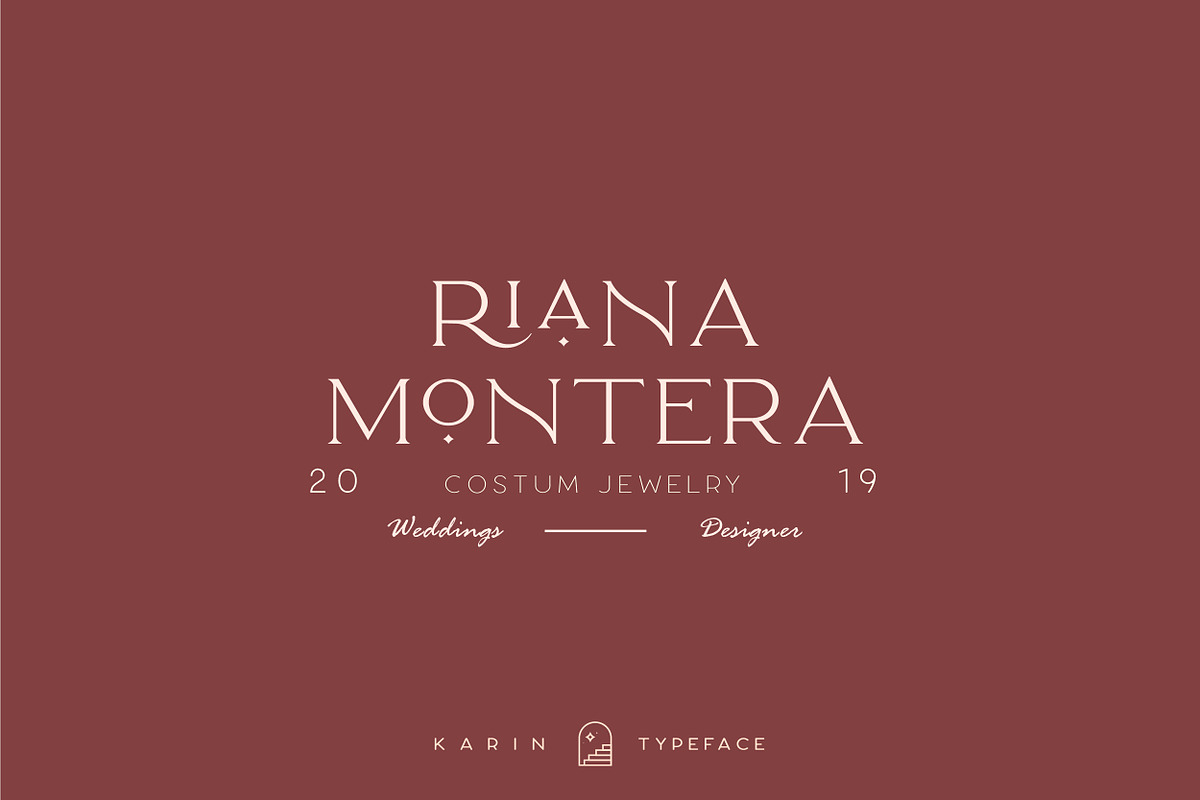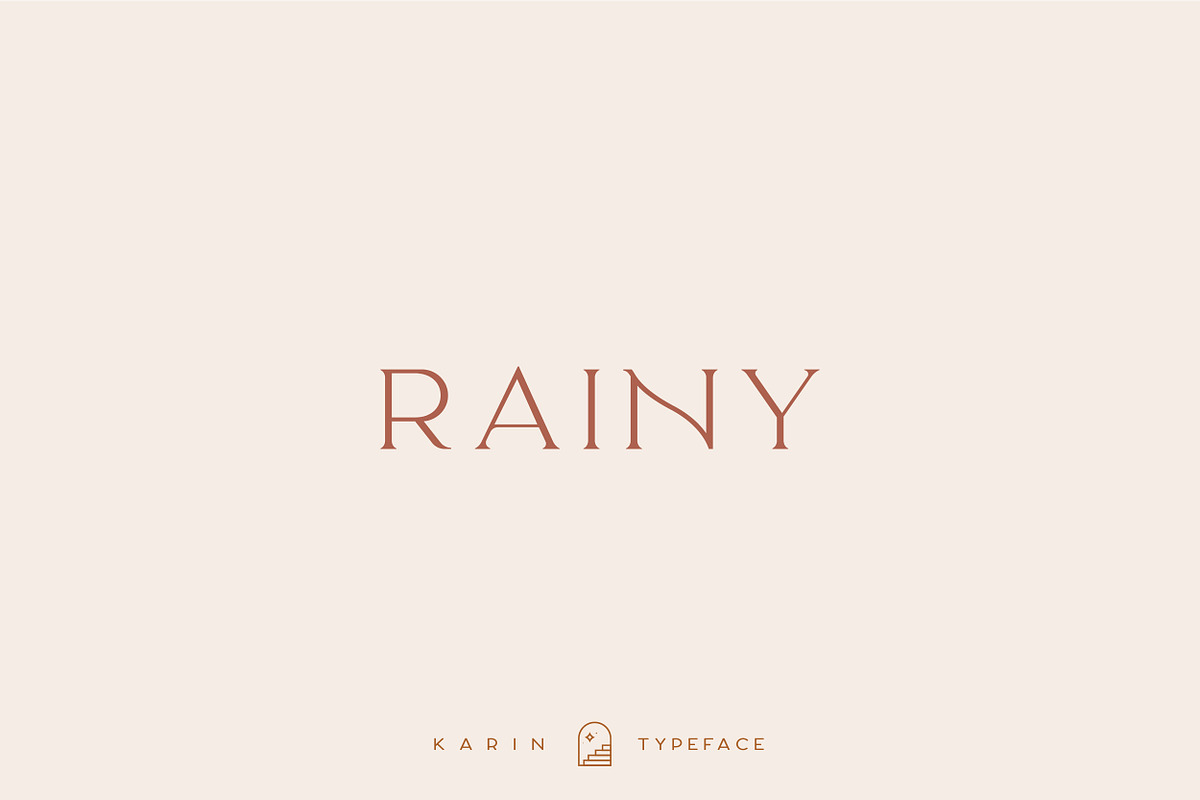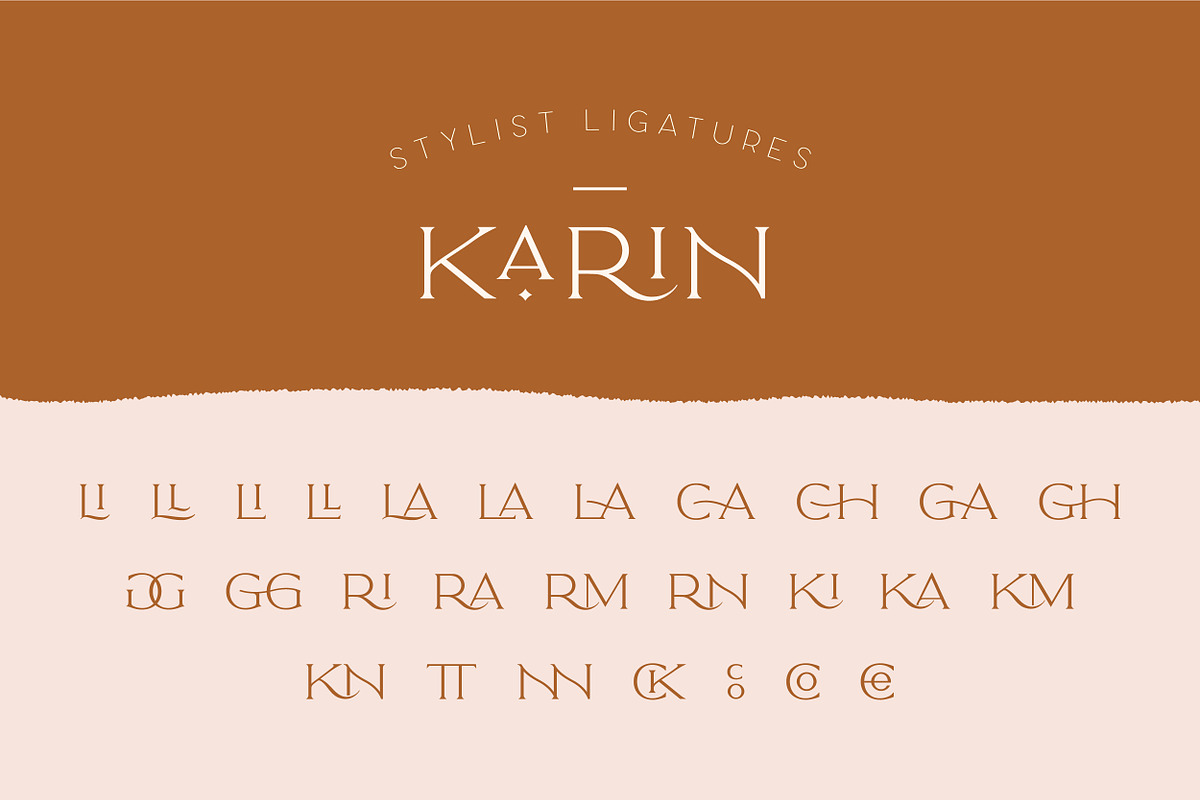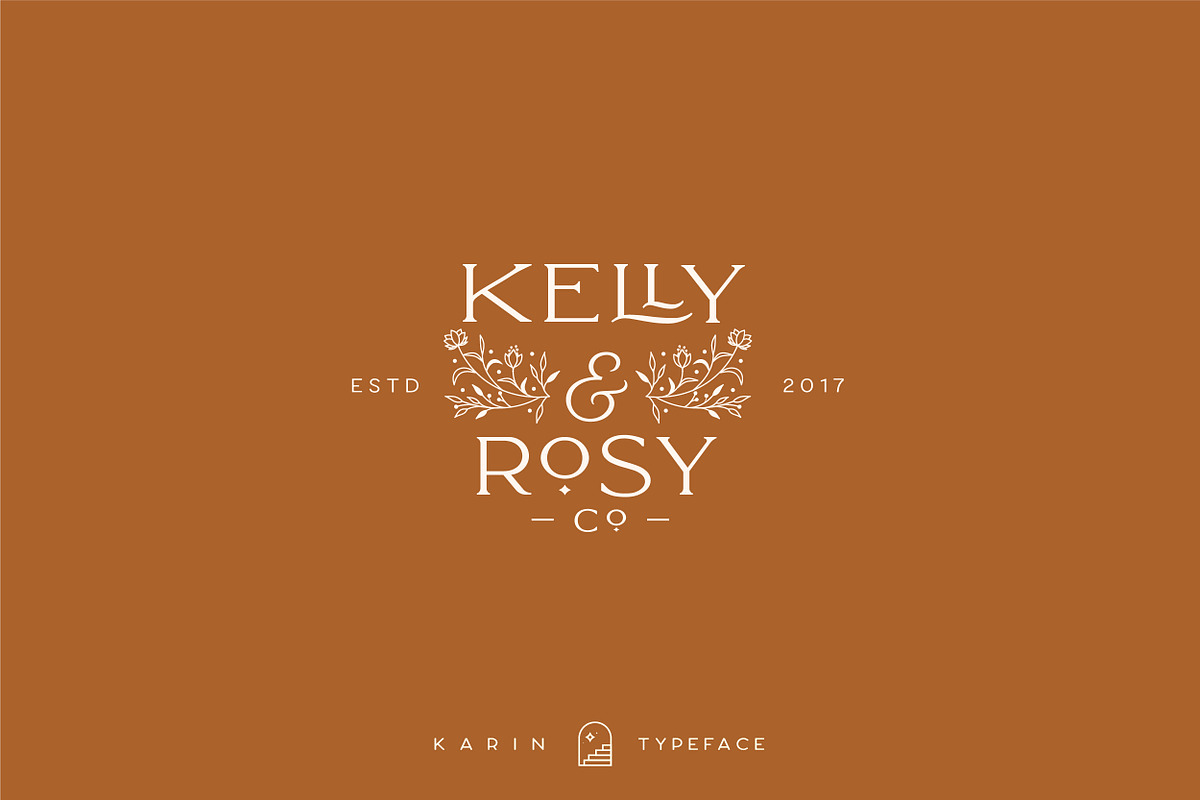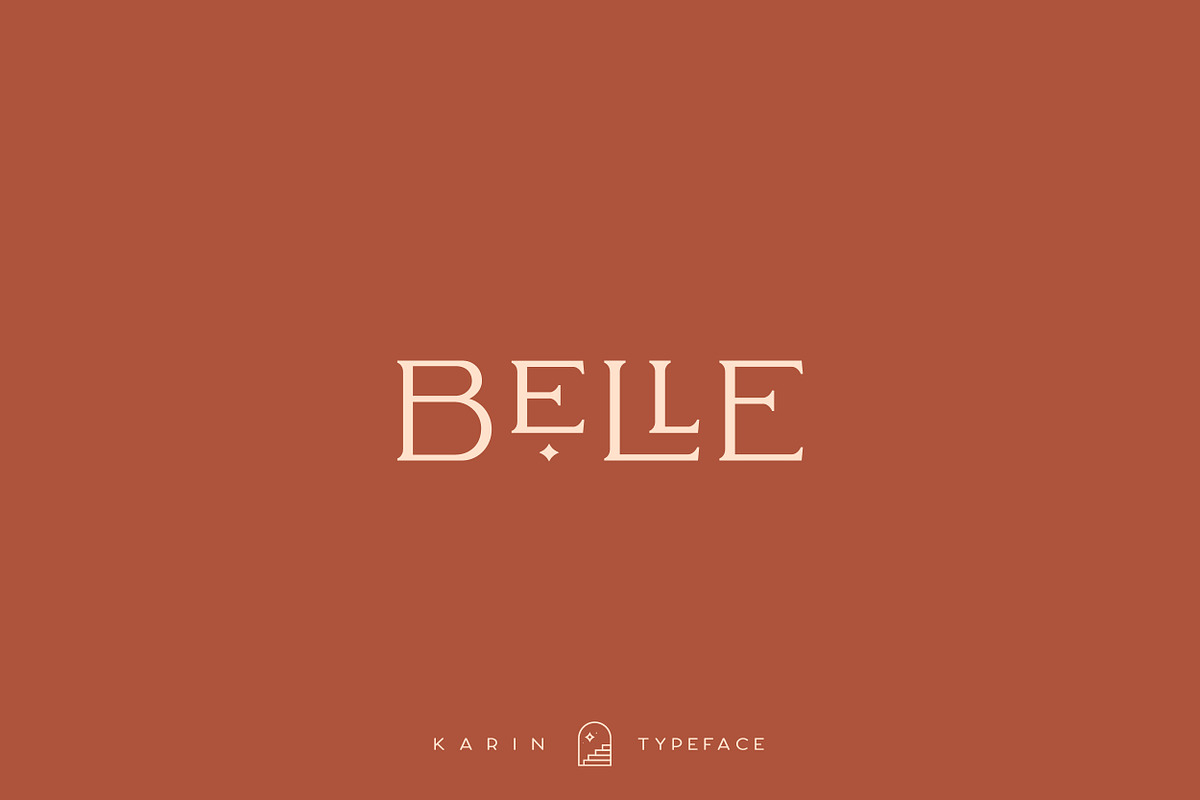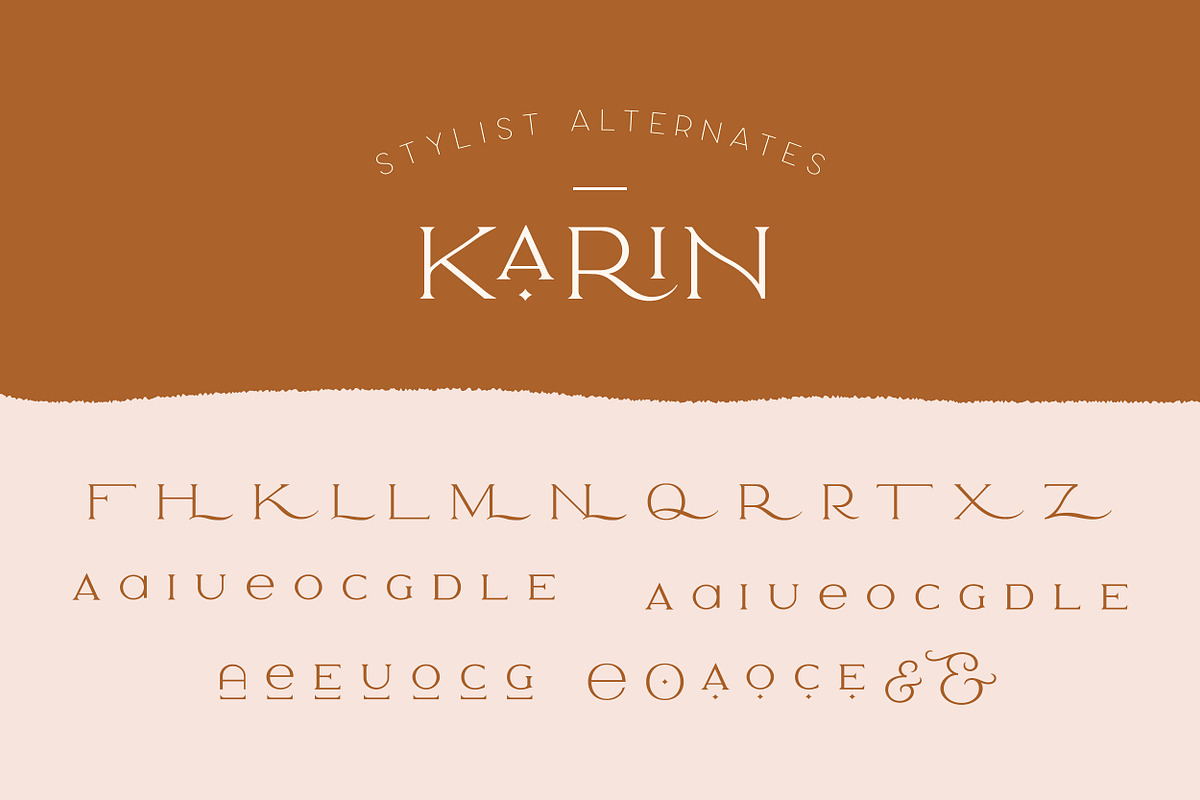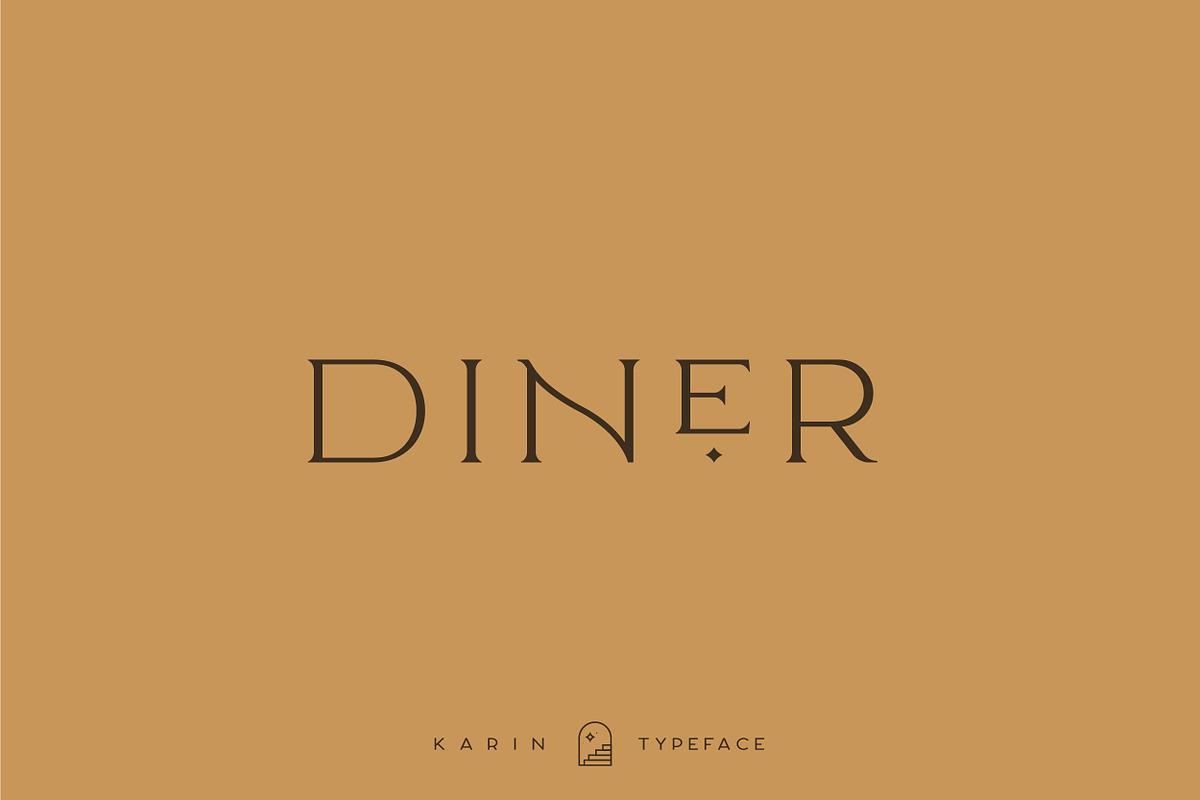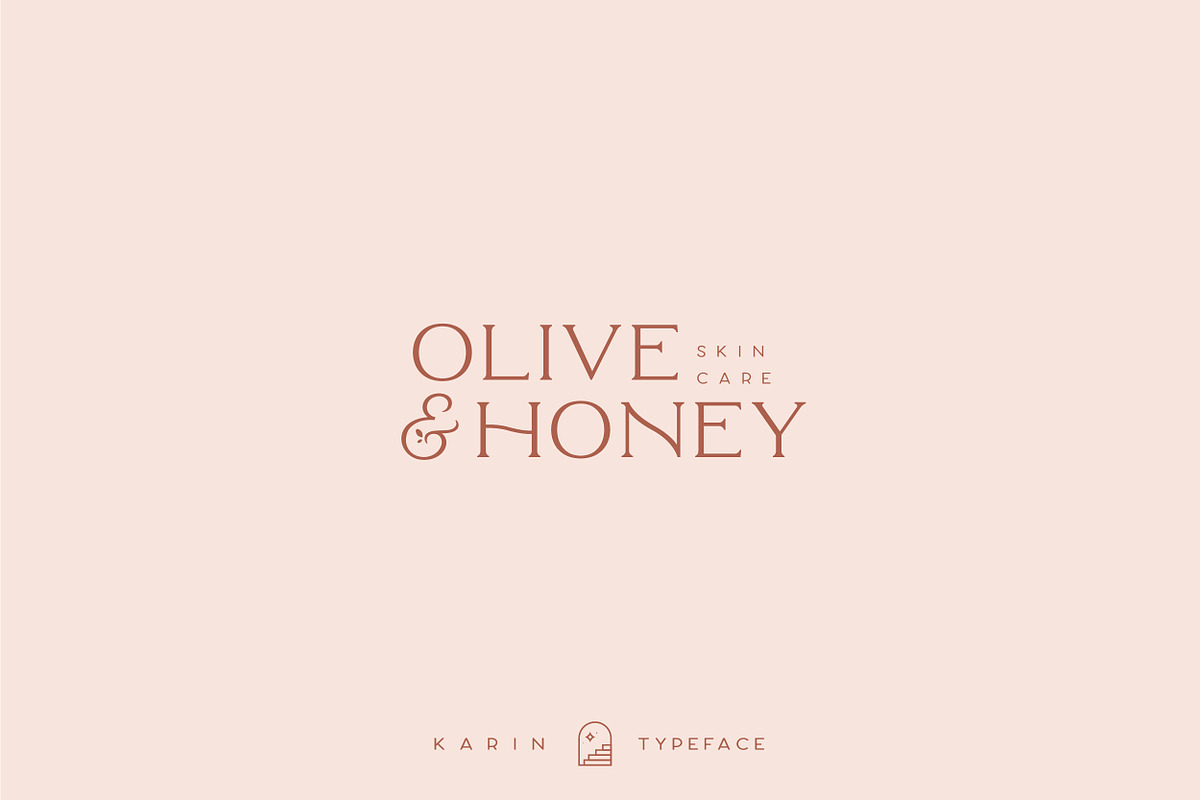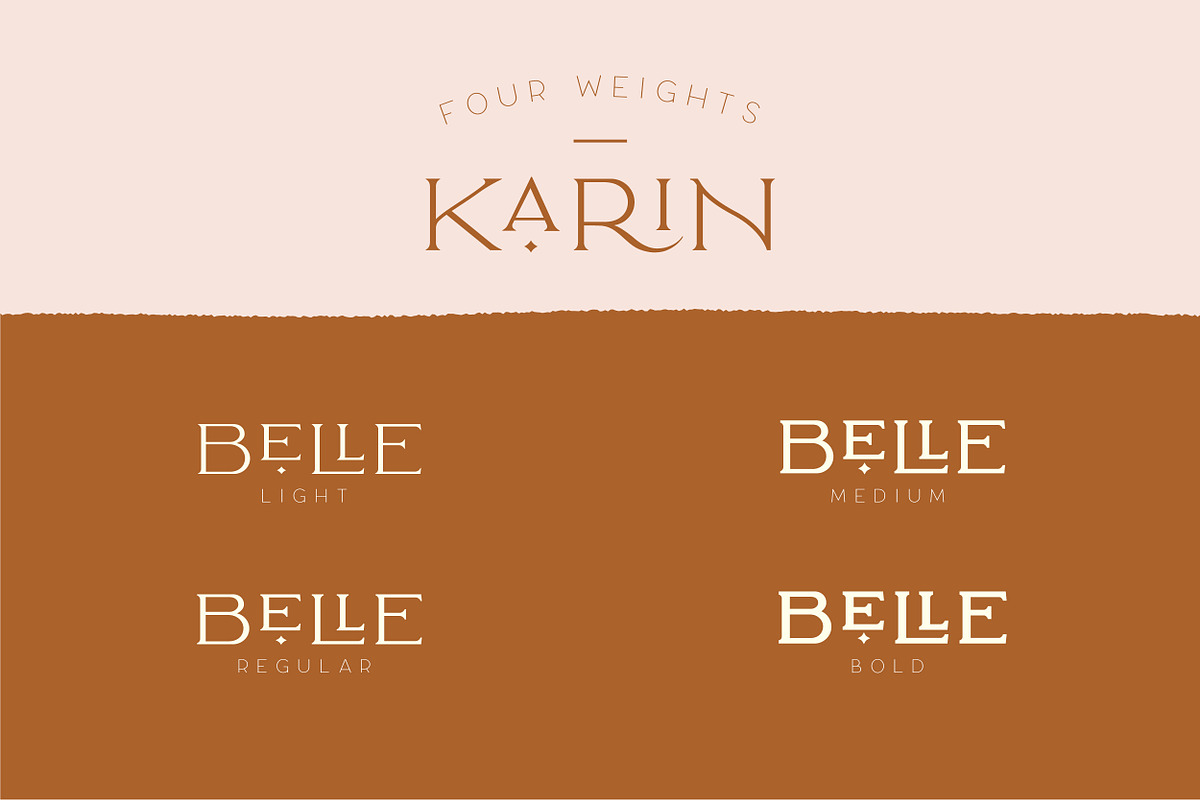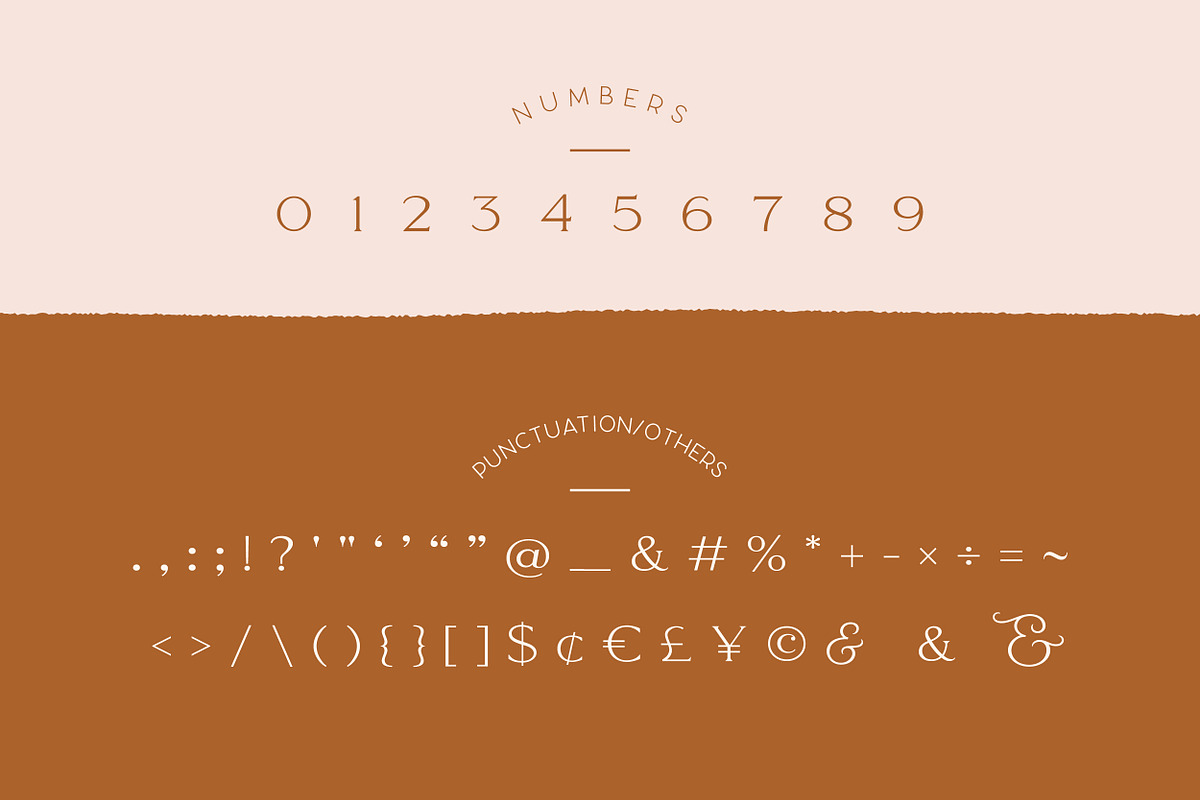
Elegant Karin - Stylish Typeface
Elegant Karin is a Minimalist Modern Elegant vintage font with beautiful ligatures, tons of special alternative glyphs, ornament and multilingual support. It's a very versatile font that works great in large and small sizes. Elegant Karin is perfect for branding projects, Logo design, Clothing Branding, product packaging, magazine headers, or simply as a stylish text overlay to any background image.
4 Weights font
All caps
Stylistic Alternates & Ligatures
Accented characters
Multiple Languages Supported